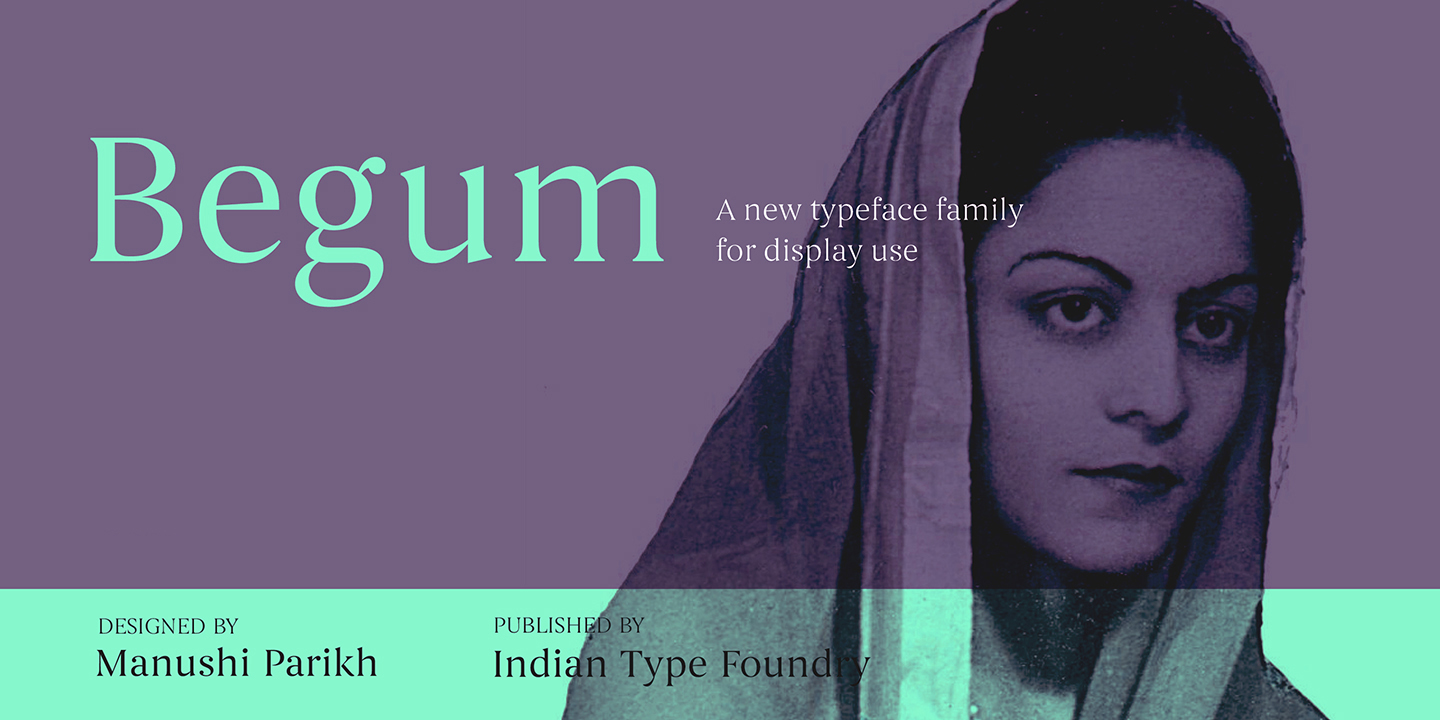
Begum Font Free Download is an elegant serif typeface that blends classic beauty with contemporary design. Its refined curves and stylish letterforms make it ideal for branding, invitations, editorial work, and packaging that demand sophistication.
Whether you're designing luxury logos, wedding invitations, or high-end product labels, Begum Font Free Download brings a touch of grace and timeless charm to your projects. Its readability and delicate details ensure it stands out in both print and digital formats.